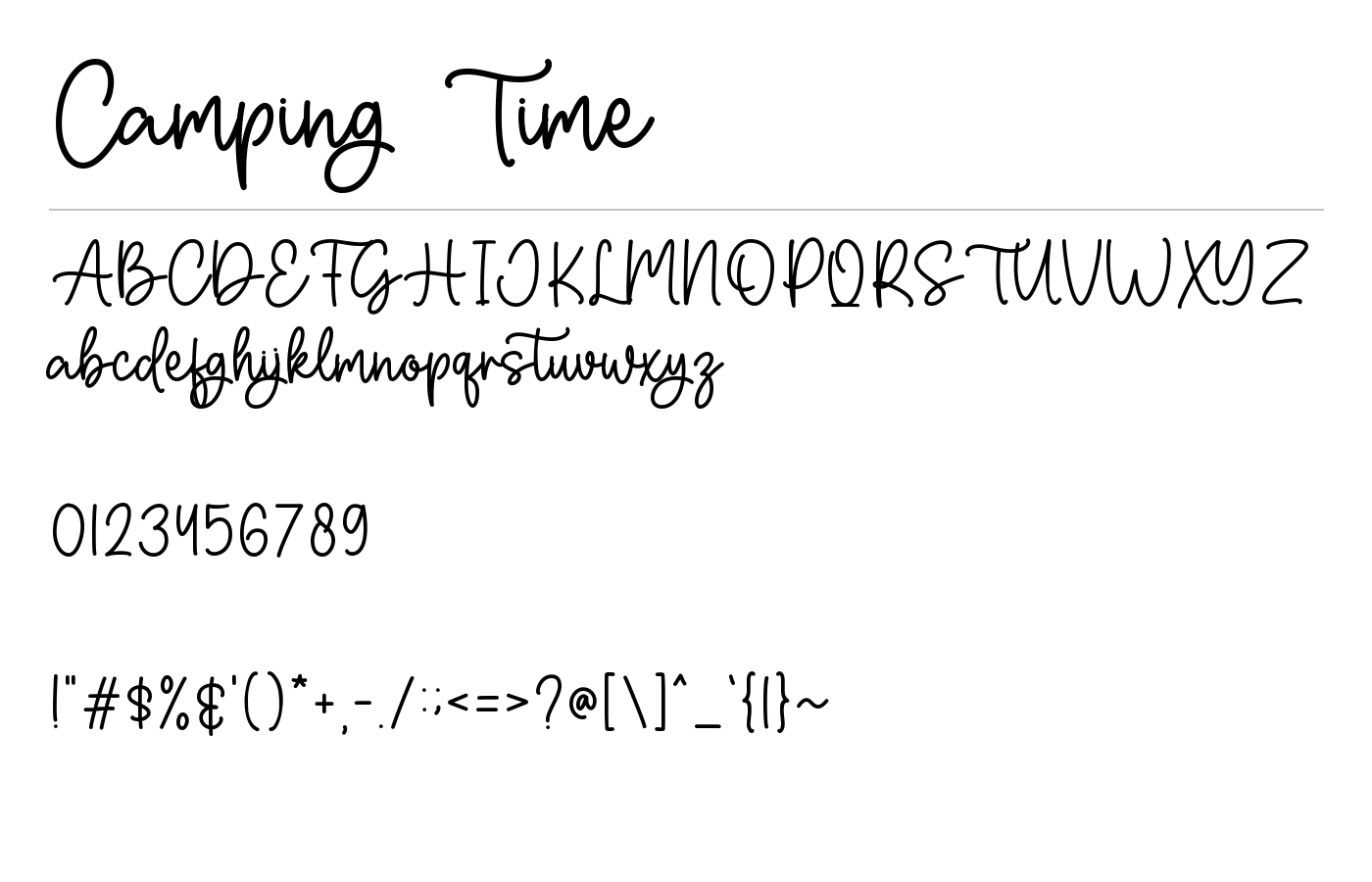
Camping Time is a playful and casual script font with a handwritten feel, featuring smooth, flowing strokes and a slightly whimsical character. Its light weight and airy spacing make it perfect for friendly, informal designs like invitations, branding for lifestyle or outdoor products, and social media graphics, where a personal and approachable tone is desired. This font’s charm comes from its simple, lively letterforms that bring warmth and personality to any project.
Camping Time Font
About Camping Time Font